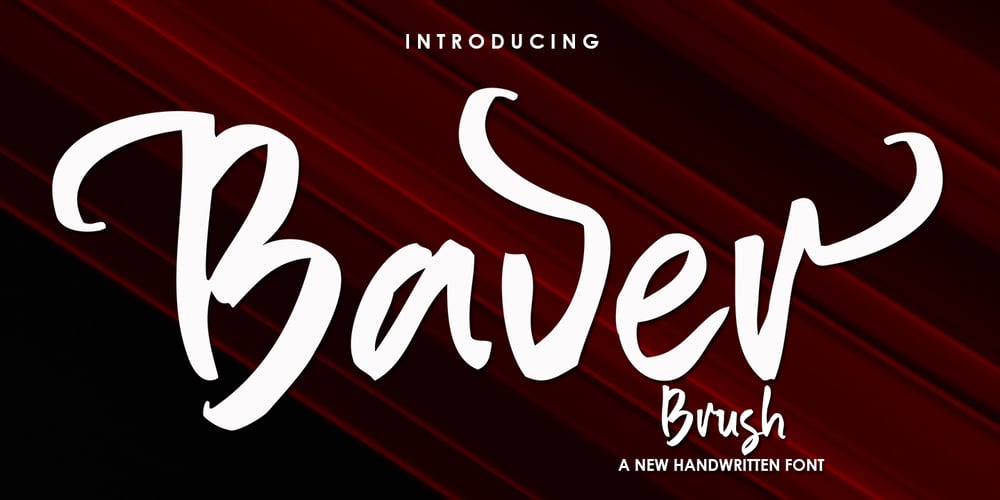
Baver Brush Font Family was designed by Khaled and published by Akifatype. Baver Brush contains 1 styles and family package options. Baver Brush is a textured brush font, a contemporary approach to design, naturally handmade. It also has alternatives and ligatures that make your design more attractive. Suitable for use in title design such as clothing, invitations, book tittles, stationery designs, quotes, branding, logos, greeting cards, t-shirts, packaging designs, posters and more.